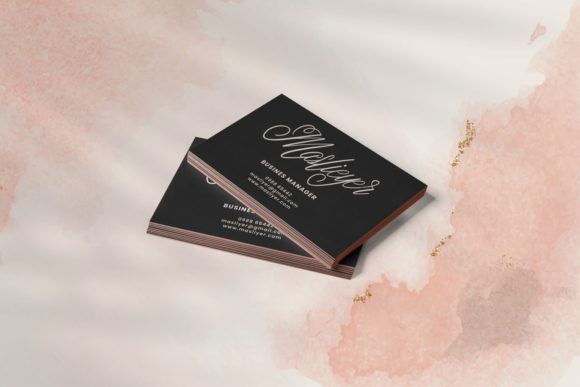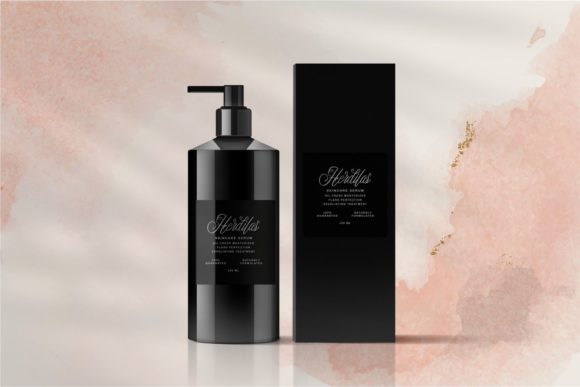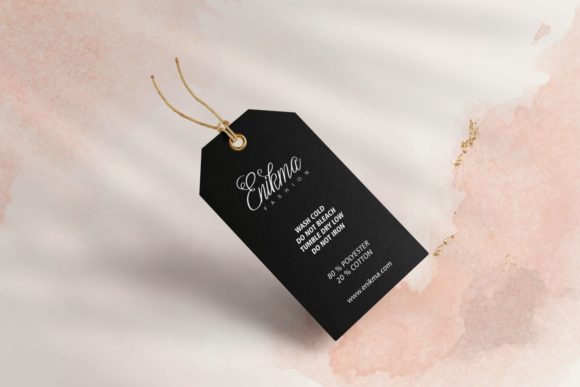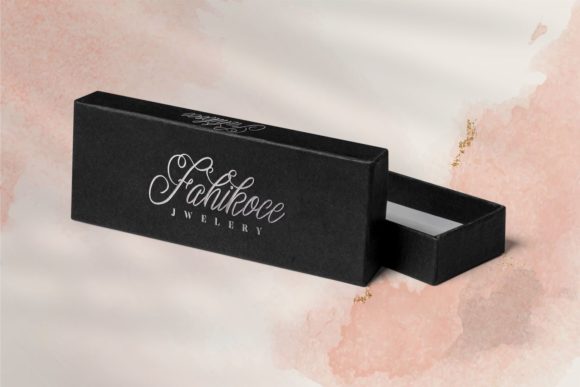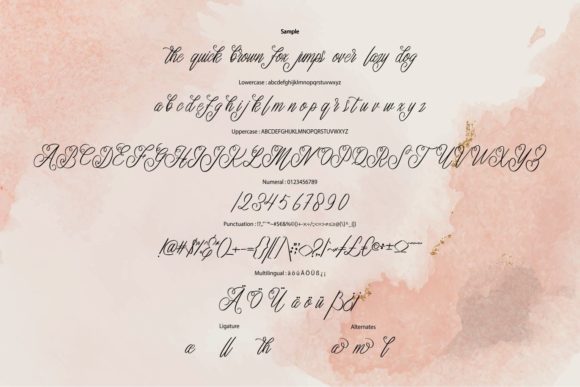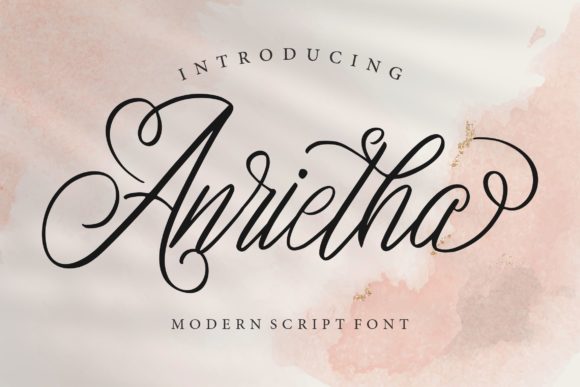
The Elusive Perfect Font: My Encounter with Anrietha
Ah, the quest for the perfect font. We’ve all been there – scrolling through endless font libraries, trying to find that one font that makes our design project go from meh to mesmerizing. I recall working on a branding project for a luxury client, and my designer heart was aching to find a font that exuded sophistication and elegance. That’s when I stumbled upon Anrietha, a chic, refined script font that instantly caught my attention.
- ✨ Elegant and sophisticated design that’s perfect for luxury brands
- ✅ Stylish alternates and ligatures that add a touch of uniqueness to your text
- ⚡️ Highly legible, even at smaller font sizes
- 🎨 Versatile and works well for both digital and print projects
While Anrietha is an amazing font, there are a few things to keep in mind:
- 🤔 Some users might find the font a tad too ornate for certain projects, such as casual social media posts or kid-friendly content.
- ⚠️ As with many script fonts, it may not be the best choice for very long blocks of text, as it can get a bit tiresome to read.
The Story Behind Anrietha: Designer Inspiration
While I couldn’t find any direct information on Anrietha’s origins, I like to imagine that it was created by a designer who was inspired by the elegance of 18th-century calligraphy. Perhaps they aimed to craft a font that would evoke the sophistication and refinement of luxury brands, while still being approachable and versatile. Whatever the story, Anrietha has undoubtedly become a beloved font among designers and crafters.
Q: What type of projects is Anrietha best suited for?
A: Anrietha is versatile and works well for luxury branding, high-end events, elegant editorial content, and sophisticated advertising.
Q: Is Anrietha a difficult font to read?
A: While Anrietha is a script font, it’s actually quite legible, even at smaller font sizes. However, it may not be the best choice for very long blocks of text.